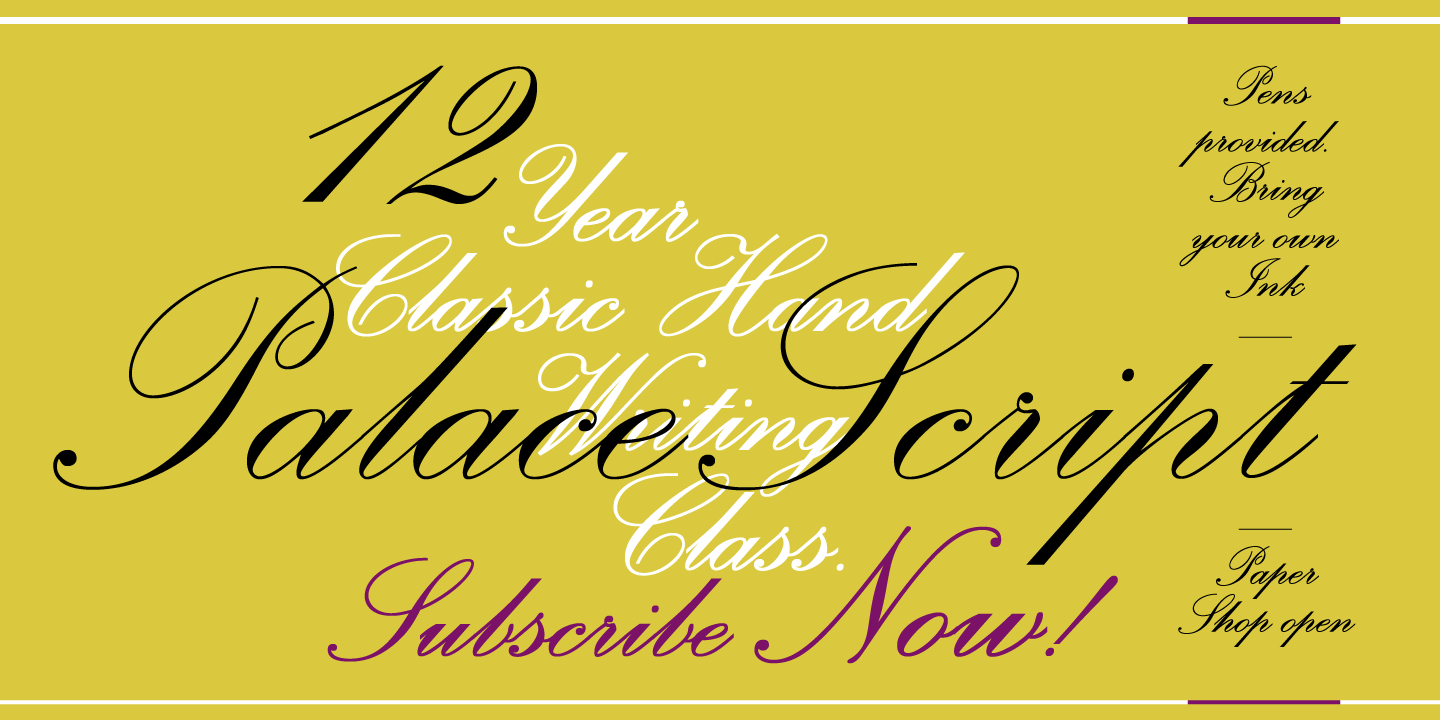
Palace Script Font is perfect for royal wedding invitations, luxury hotel communications, prestigious award ceremonies, aristocratic event materials, elegant fine dining establishments, exclusive club memberships, high-end jewelry branding, and regal cultural institution presentations.
What makes Palace Script Font exciting is its royal grandeur that embodies the majestic elegance and aristocratic sophistication of palatial calligraphy through flowing, ornate letterforms. This magnificent typeface features elaborate script characteristics with noble flourishes that evoke the ceremonial beauty and refined luxury of royal courts, making it ideal for projects requiring authentic aristocratic appeal and the representation of supreme elegance in their prestigious communications.
The Palace Script Font family includes regular weight with decorative swashes, ornamental capitals, and royal-inspired calligraphic elements that enhance the palatial aesthetic with regal styling options and aristocratic typography flourishes for luxury applications.
This majestic typeface delivers exceptional royal sophistication and aristocratic appeal, making Palace Script Font Free Download a treasured resource for luxury hospitality and prestigious event projects. The font's regal character makes it perfect for organizations wanting to convey supreme elegance and aristocratic distinction in their brand communications. Luxury hotels and exclusive venues particularly appreciate its ability to communicate royal treatment and palatial sophistication instantly to distinguished clientele. The magnificently designed letterforms ensure readability while preserving the grandiose appeal of royal script traditions across all applications from exclusive invitations to luxury brand materials. Whether you're creating materials for royal heritage sites or developing branding for ultra-luxury services, this font provides the perfect combination of aristocratic authenticity and commercial luxury appeal. Creative professionals consistently choose this typeface for projects requiring that ideal balance of royal grandeur and contemporary luxury standards, making it invaluable for prestigious communications that celebrate both aristocratic heritage and modern luxury excellence in today's exclusive hospitality market.